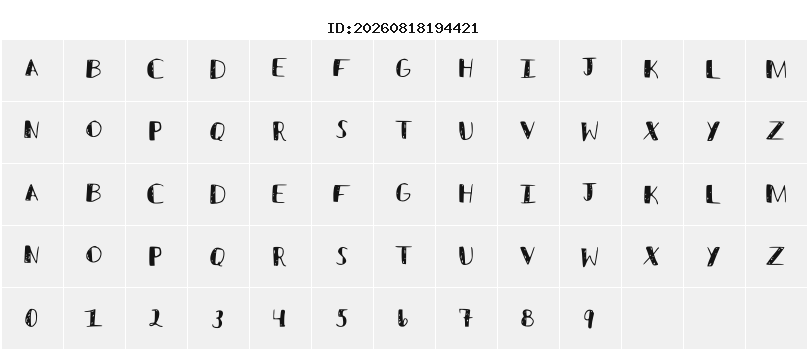
• Font Name: Sketched
• Full Font Name: Sketched
• PostScript Name: Sketched
About Sketched.ttf
Sketched.ttf is a modern, elegant sans-serif font designed for ultimate readability and visual harmony. Perfect for branding, headlines, web design, and print materials.